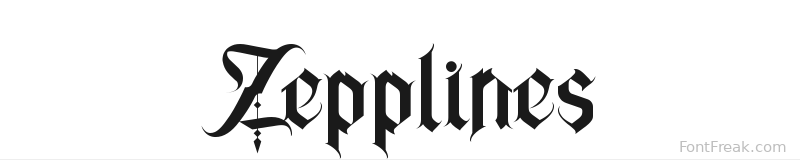
Zepplines
Zepplines is a striking display font crafted by Kong Font, characterized by its bold, decorative style that fuses traditional elegance with a modern twist. This font falls within the decorative category, making it an eye-catching choice for various creative projects. The Zepplines font features a unique combination of thick and thin strokes, creating a dynamic contrast that draws attention. The lettering is adorned with intricate flourishes and sharp angles, giving it a gothic flair while maintaining readability. The spacing between characters is well-considered, enhancing its visual appeal and ensuring clarity in presentation.
This font is particularly well-suited for specific use cases where impact is essential. It can be used effectively in wedding invitations, where its ornate style adds a touch of sophistication. Movie posters benefit from its dramatic flair, capturing the essence of the film while engaging viewers. Restaurant menus can also leverage the Zepplines font to create a memorable dining experience, setting the tone for a unique culinary adventure. Additionally, it works wonderfully for branding purposes, especially for businesses aiming to convey a sense of creativity and distinction.
What sets the Zepplines font apart is its ability to blend tradition with modernity, making it a standout choice for anyone looking to elevate their design work. With its distinct charm and artistic flair, the Zepplines font free download is an excellent addition to any designer's toolkit, ready to inspire creativity and enhance visual storytelling.